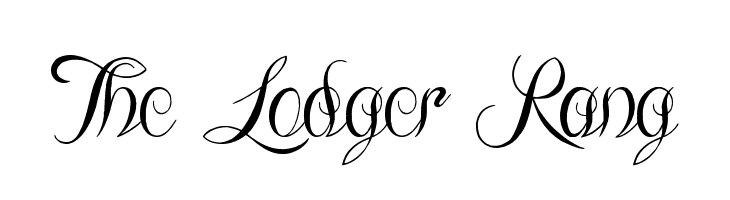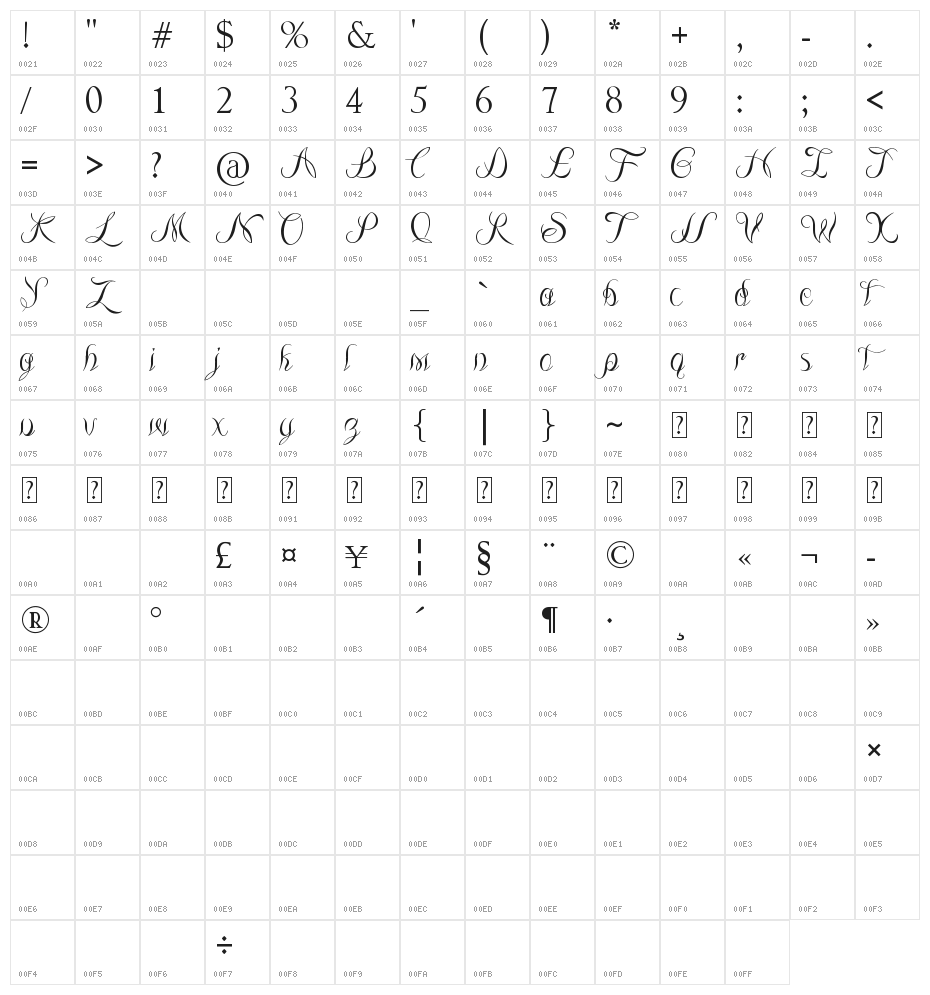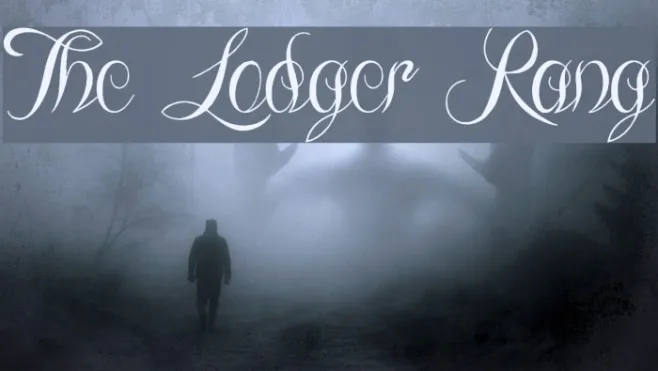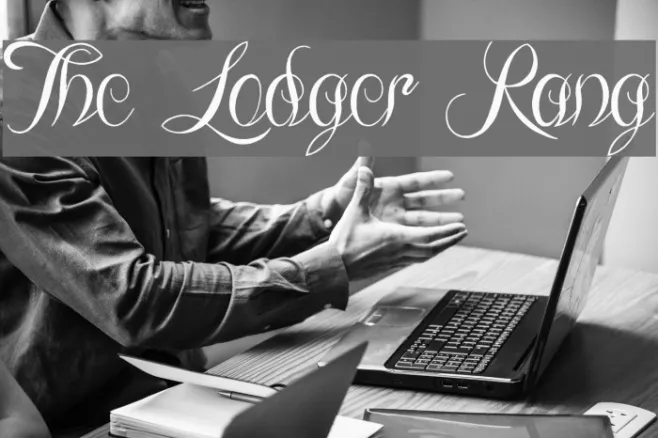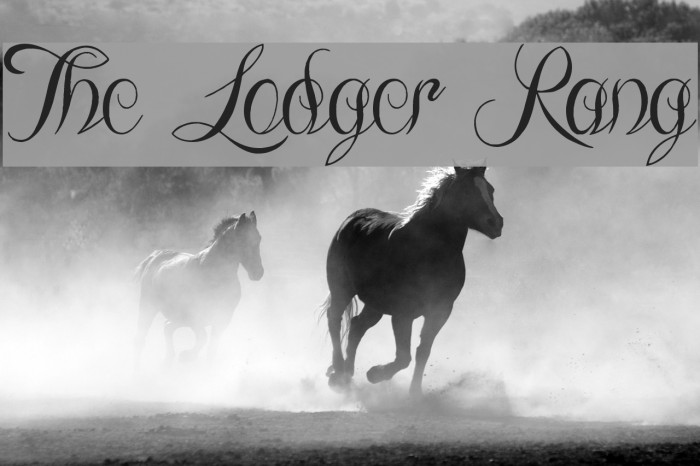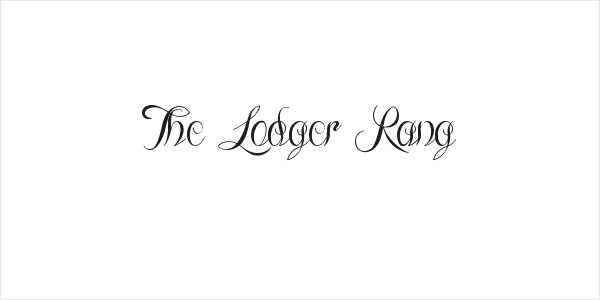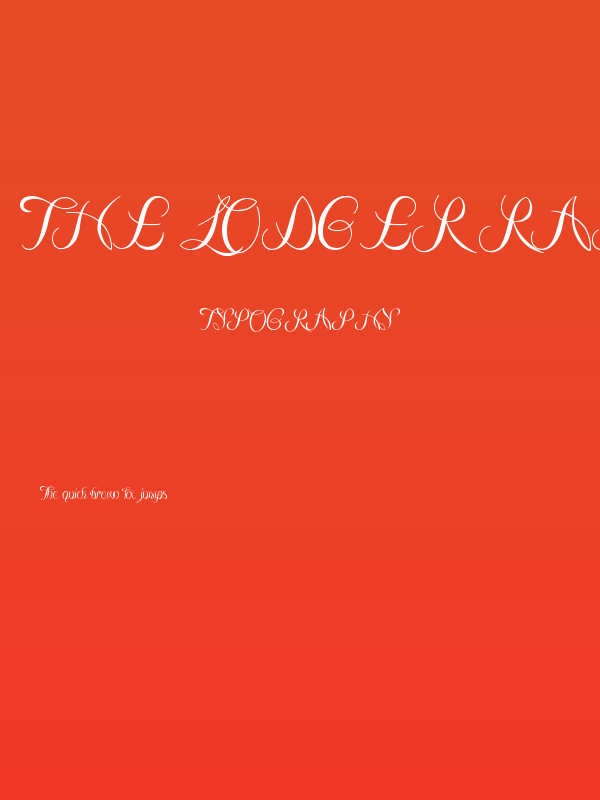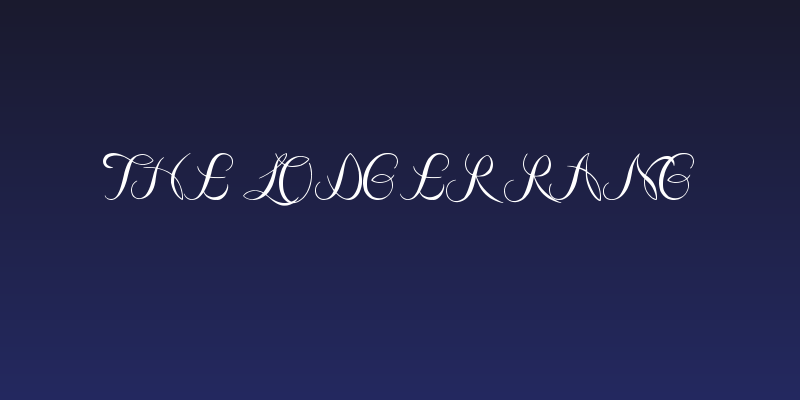
The Lodger Rang Font
The Lodger Rang Description
This font features an elegant and flowing script style, characterized by its intricate and decorative letterforms. The uppercase letters are particularly ornate, with sweeping curves and flourishes that give a sense of movement and sophistication. The lowercase letters maintain a consistent style, with a slightly more restrained design that complements the uppercase. The numerals are clear and legible, yet they retain the decorative flair of the overall font. Special characters are designed with the same attention to detail, ensuring a cohesive look throughout. This font is ideal for projects that require a touch of elegance and artistry.
| Proposed Projects | Ideal for wedding invitations, luxury branding, elegant packaging, and artistic posters. |